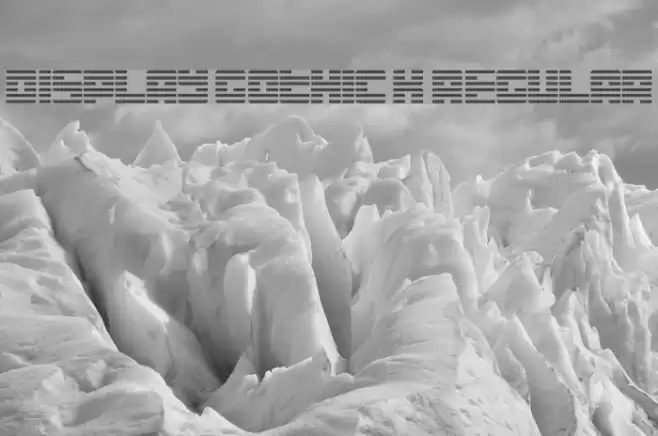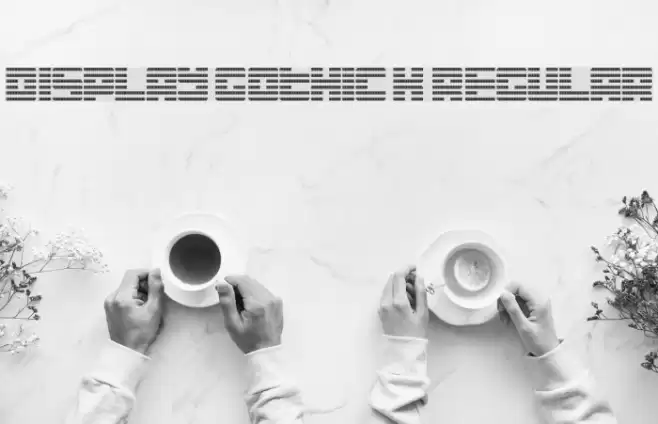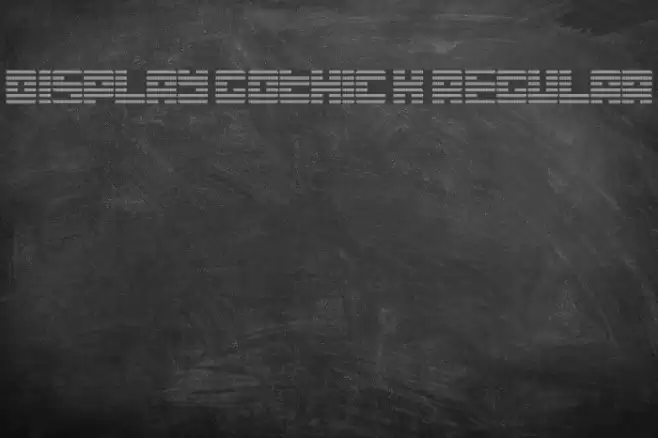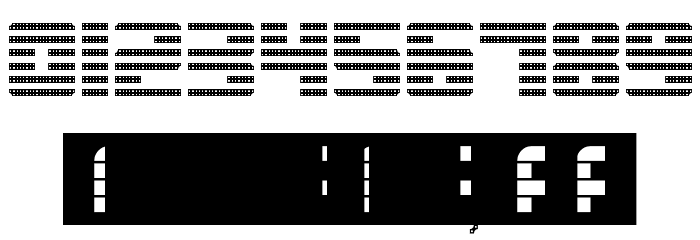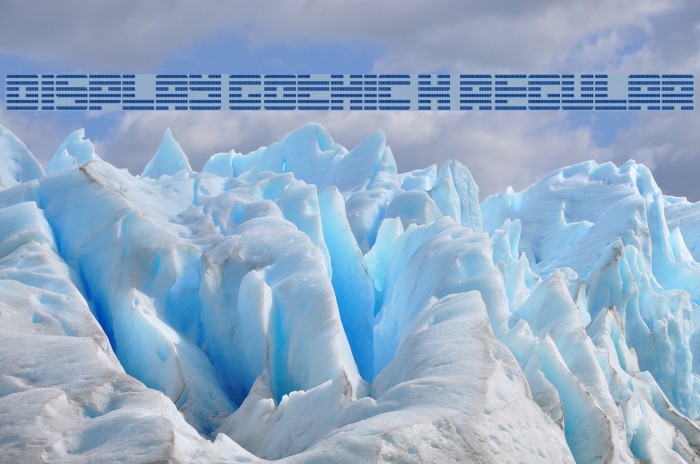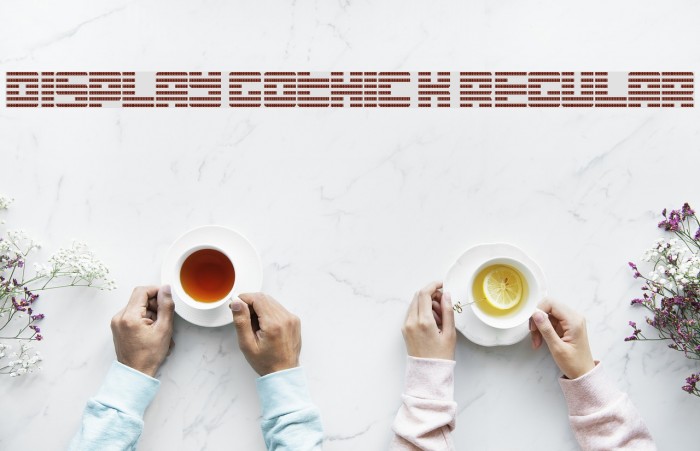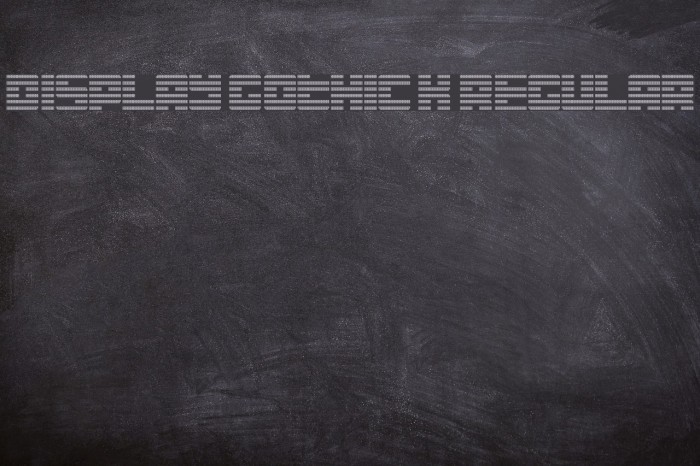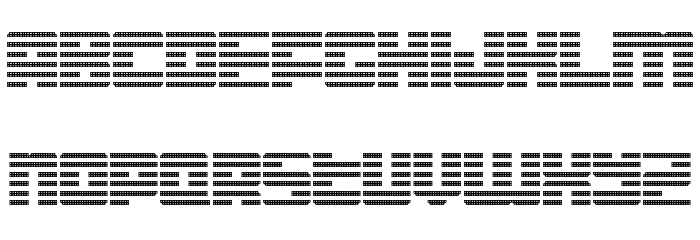
Display Gothic K Regular Font
Display Gothic K Regular Description
This font features a unique, futuristic design with a digital, pixelated appearance. Each character is constructed from a series of horizontal and vertical lines, creating a grid-like pattern that resembles early digital displays or dot matrix printers. The uppercase and lowercase letters maintain a consistent style, with a strong geometric influence. Numbers and special characters follow the same design principles, ensuring a cohesive look across all elements. The font's distinct style makes it ideal for projects that require a modern, tech-inspired aesthetic.
A futuristic, pixelated font with a digital, grid-like design from Uncategorized fonts.
- Proposed Projects: Ideal for tech-related branding, digital art projects, video game interfaces, and futuristic-themed posters.